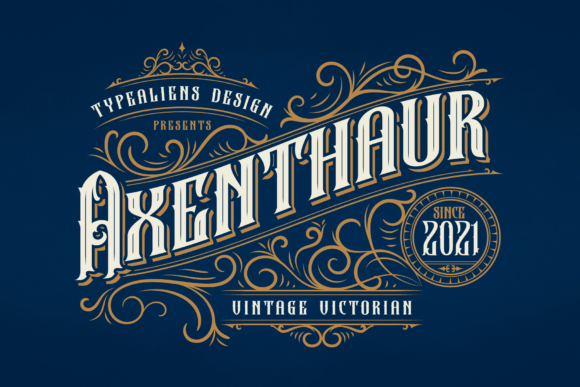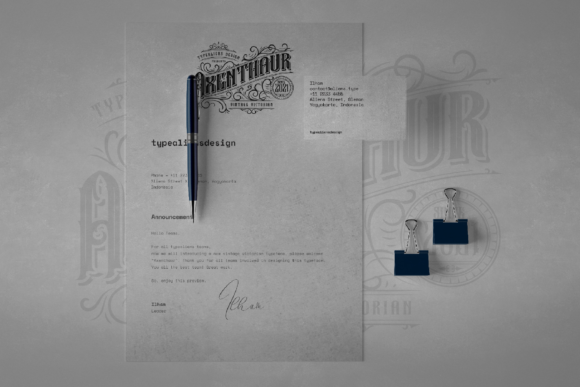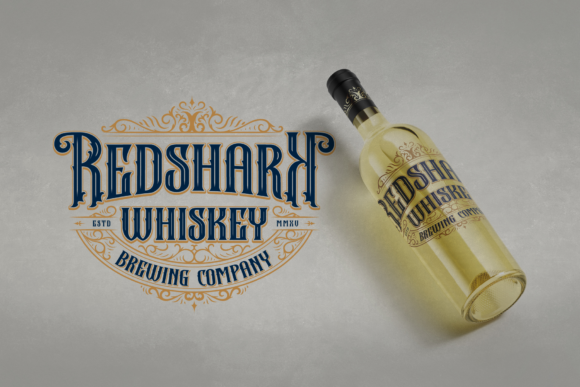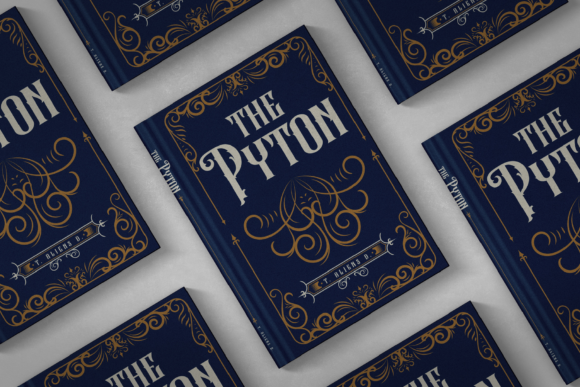
Axenthaur Font: Vintage Blackletter for Unique Logo Design
About the Axenthaur Font
Explore the possibilities with Axenthaur Font, a font that offers both beauty and functionality. Axenthaur is a detailed, vintage styled blackletter font. This original look will appeal to a wide range of crafty ideas, from letterheads and titles, to stationery.
Axenthaur excels as a display typeface, ideal for headlines, logos, and short text blocks within branding materials and posters. Its intricate details shine in large sizes, adding a touch of vintage sophistication. However, its high level of detail makes it unsuitable for body text or UI elements where readability is paramount; long passages set in Axenthaur would be difficult to read.
The font’s personality is bold and slightly ornate, conveying a sense of history and craftsmanship. It suits brands aiming for a vintage, luxurious, or even slightly rebellious image. Consider pairing it with a clean sans-serif like Montserrat for contrast, or a delicate script font such as Great Vibes for a more layered, romantic feel.
For a more modern take, a geometric sans-serif like Futura would provide a striking juxtaposition, allowing Axenthaur’s decorative elements to stand out. Avoid pairing it with other highly decorative fonts, as this could lead to visual clutter and reduced readability.
Axenthaur Font Usage Examples
Axenthaur Font Example